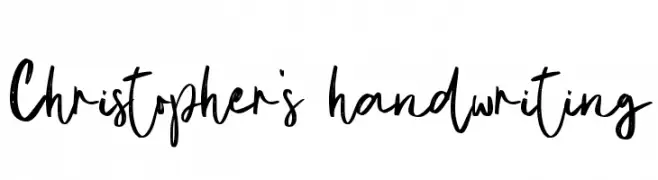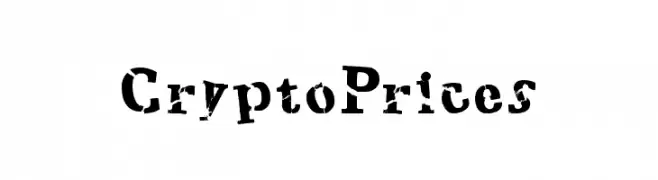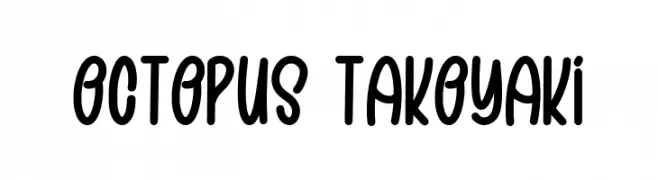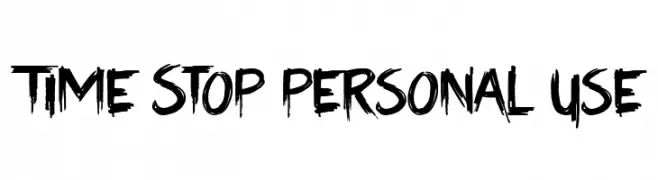
Ornate font composed of intricate historical illustrations for each character.
A bold, outlined font with playful and energetic characters.
Whimsical stick-figure font with expressive, hand-drawn characters.
A decorative font with diamond-shaped enclosures and star embellishments, offering a vintage and artistic style.
A bold, textured font with a playful, handcrafted feel.
A bold, textured, and playful font with a hand-drawn appearance.
A bold icon set for gaming and tabletop themes.
A bold, stencil-style font with a rugged, distressed look.
A playful, hand-drawn font with bold, rounded characters and a whimsical style.
A bold, distressed font with a vintage, rugged appearance.
A pixelated, retro font inspired by early digital graphics.
A bold, gritty font with splattered, distressed strokes and a chaotic artistic vibe.
A bold, playful font with thick, rounded strokes and a comic-like style.
A futuristic, angular font with a bold, geometric design.
A bold, dynamic script font with a gothic flair and strong presence.
A cursive, brush-style font with a flowing, handwritten appearance.
An elegant and decorative script font with ornate flourishes and high contrast strokes.
An elegant script font with intricate curves and historical charm.
A bold, modern font with strong, clear characters.
An elegant script font with flowing, cursive letterforms and sophisticated style.
A clean, modern typeface with uniform stroke width and excellent readability.